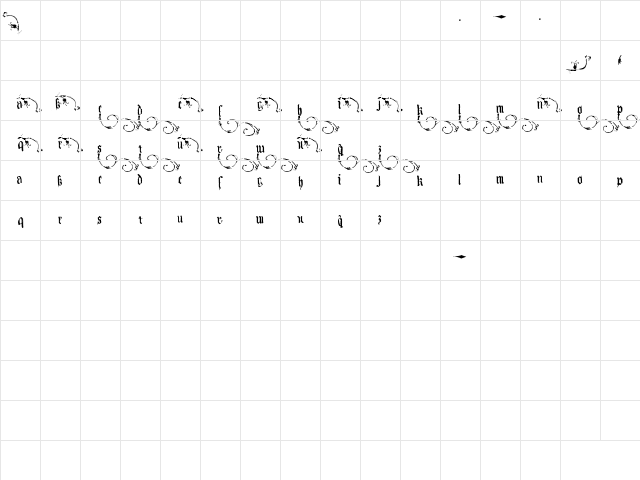
KingjolA Regular Free Font
KingjolA Regular
Complete KingjolA Regular glyph index. Displaying only characters natively supported by KingjolA Regular font.
Design Context for KingjolA
KingjolA is a composed and adaptable typeface that performs quietly and consistently across a wide range of design contexts.